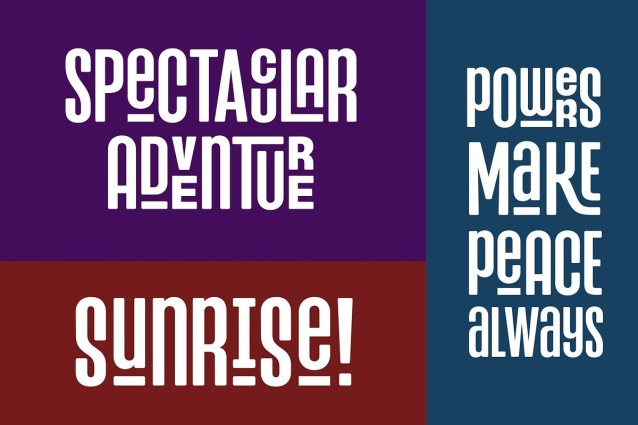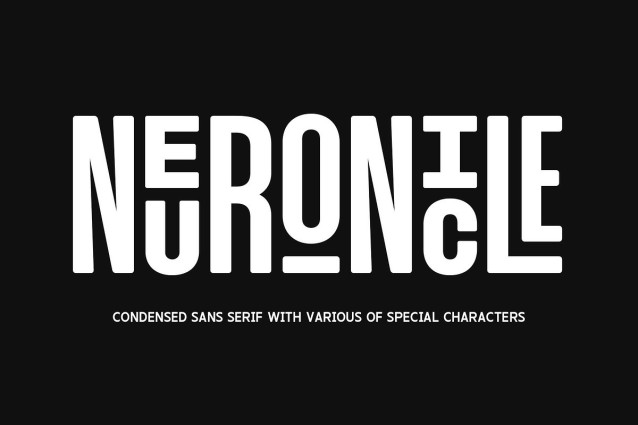
Neuronicle Font
Neuronicle Font is a condensed sans typeface with a playful and expressive feel. The bold weights and rounded corners create a relaxed yet elegant impression — the perfect balance of fun and sophistication. Neuronicle is designed to shine in headlines and displays. With a variety of ligatures, special alternates, and small caps, you can combine typefaces to create dynamic, playful, and creative typography.